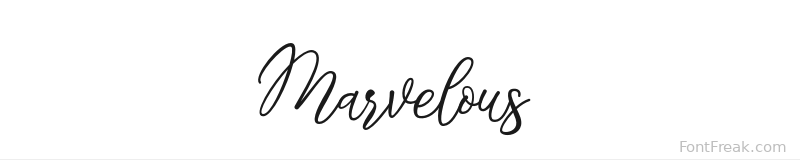
Marvelous
The Marvelous font by MJType is a striking display typeface that beautifully balances elegance with personality. Released in 2023, this freeware font captures attention with its sophisticated script style, making it an ideal choice for creative projects. The design features a smooth, flowing stroke that exudes a sense of warmth and friendliness, while the varying stroke weights add depth and interest. The spacing is thoughtfully crafted, allowing for readability without compromising its artistic flair. Subtle decorative elements enhance the overall aesthetic, making it perfect for a variety of applications.
This font excels in specific use cases, including wedding invitations where its graceful curves can lend a romantic touch. It is equally suitable for movie posters, where the dynamic script can draw the viewer's eye and convey a sense of drama. Restaurant menus can also benefit from the Marvelous font, adding a layer of sophistication to the dining experience. Additionally, content creators looking to elevate their branding will find this font a valuable asset for logos and promotional materials.
Targeting graphic designers, small business owners, and content creators, the Marvelous font offers versatility and charm that can enhance any project. Its unique style allows users to express creativity while maintaining professionalism, making it a popular choice among those who value aesthetics.
What sets the Marvelous font apart is its ability to combine elegance with approachability, making it suitable for both formal and casual contexts. With its captivating design and practical applications, the Marvelous font free download is a must-have addition to any designer's toolkit. Embrace the beauty of this font and let it elevate your creative endeavors.